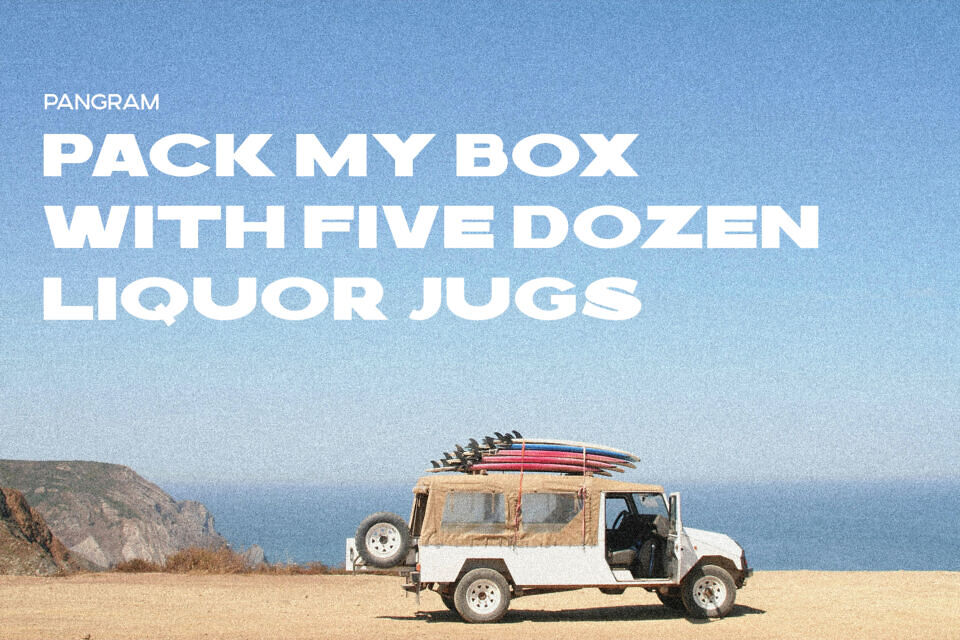
Bakers is a bold display sans serif font created to deliver clarity, strength, and visual confidence. With its wide letterforms and solid construction, the font immediately stands out while remaining clean and easy to read.
The overall design is modern but not overly sharp, giving Bakers a balanced appearance that feels both contemporary and familiar. Its confident proportions make it well suited for large-scale use, where strong presence and legibility are essential.